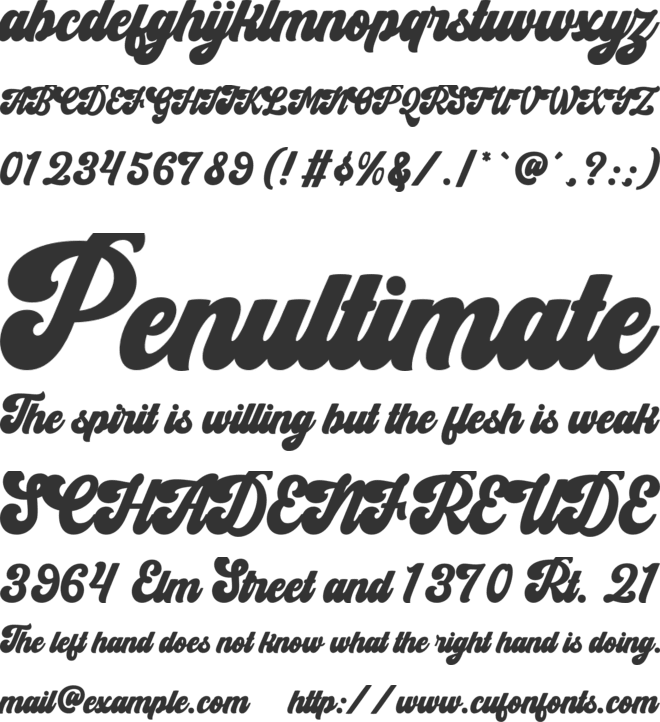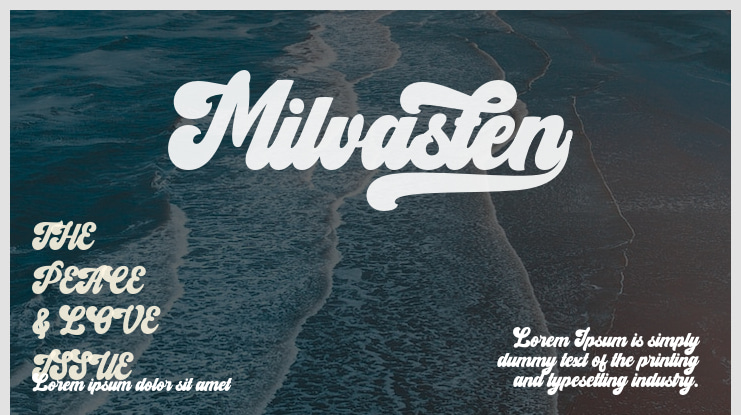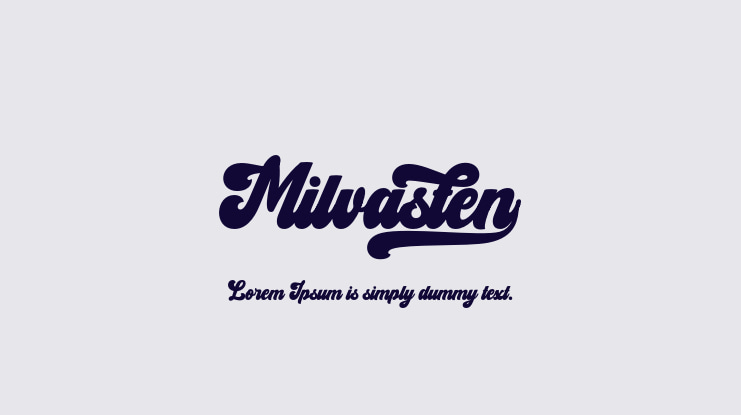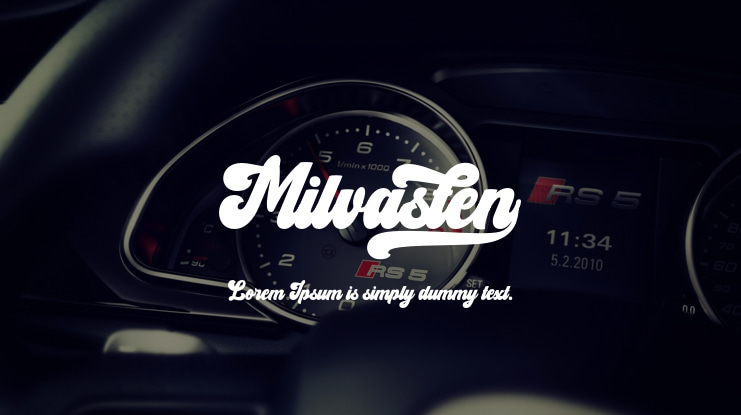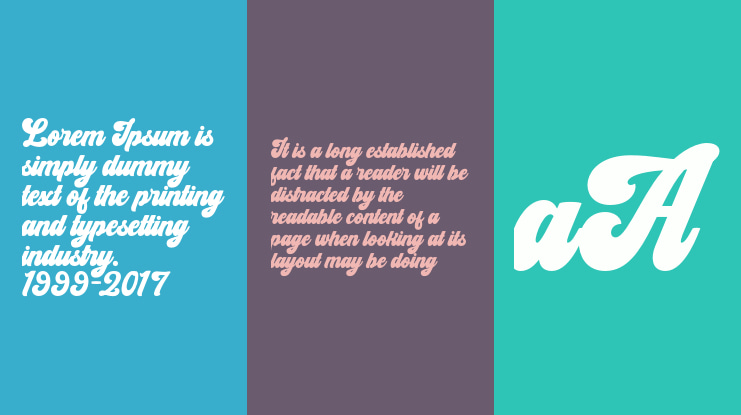
Milvasten Font
Milvasten is an entertaining, vintage-inspired script display font that can elevate your designs to a higher level. Incorporate it into your retro-themed posters, stickers, clothing, or social media content to captivate your audience. Additionally, this font is PUA encoded, allowing you to easily utilize all the unique glyphs and swashes available!